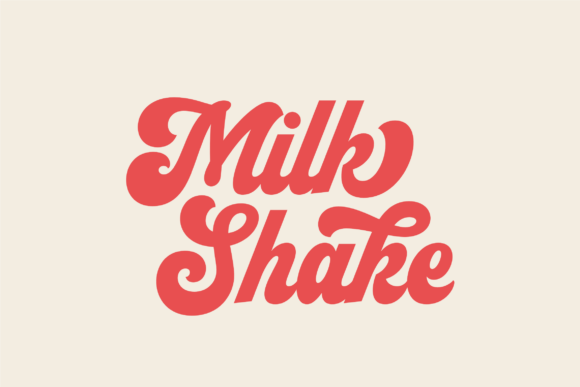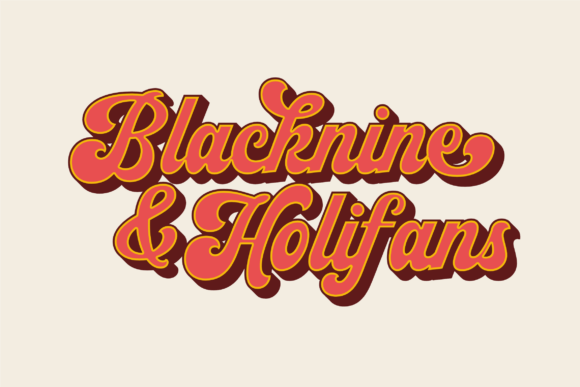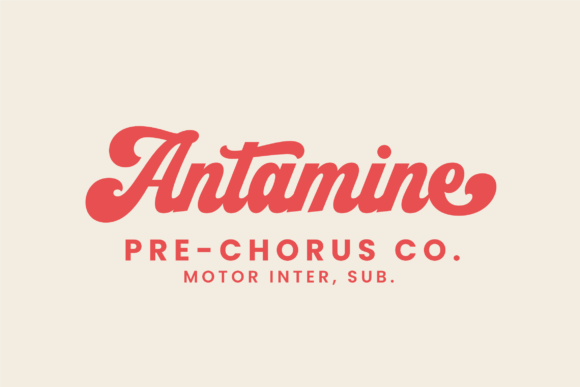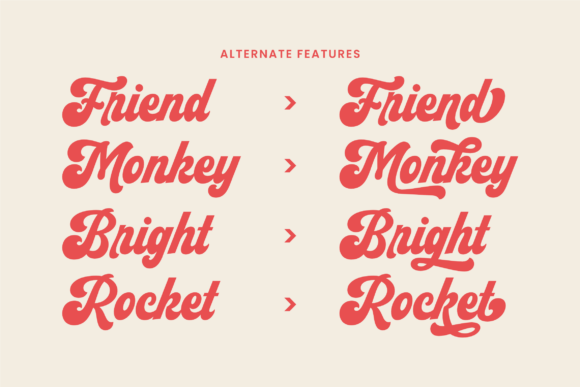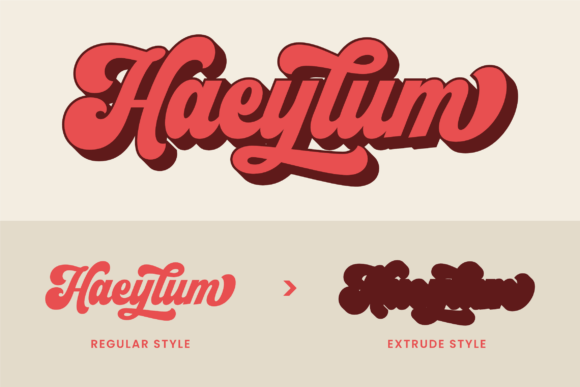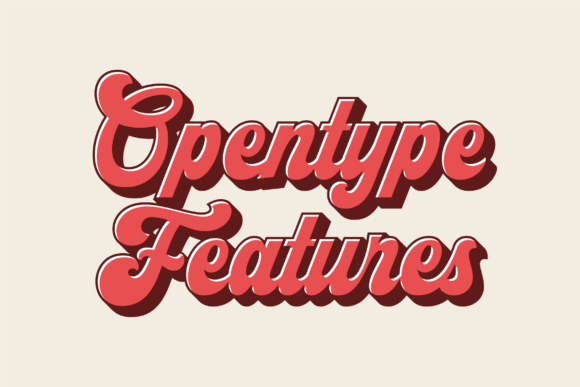
Introduction to Helvira Font
Helvira is a bold script font full of charm, confidence, and retro spirit.
Its thick strokes, flowing curves, and lively energy make it the perfect choice for eye-catching designs that demand attention From branding and logos to posters, packaging, merchandise, and social media graphics – Helvira brings a fun, nostalgic feel with a modern twist.
Key Features of Helvira Font
Why Choose Helvira Font?